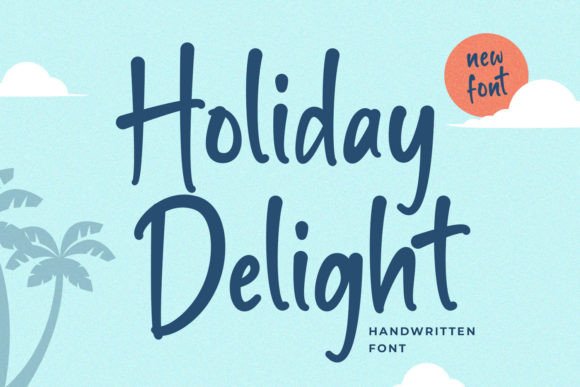
Embark on a typographic journey with Holiday Delight, a captivating script font family that exudes modern elegance and timeless charm. Crafted with meticulous attention to detail by the skilled hands of RantauType, this font is not just a collection of letters; it's an invitation to let your creativity soar.
With its graceful curves and playful personality, Holiday Delight dances across the page, leaving a trail of visual delight. Its carefully crafted swashes add a touch of whimsy and sophistication, making it the perfect choice for logos, packaging designs, and posters that demand attention.
But Holiday Delight's allure extends far beyond its aesthetic appeal. This versatile font is a workhorse, equally adept at crafting business cards and reports that command respect. Its clean lines and exceptional legibility ensure that your words will be read and understood, leaving a lasting impression on your audience.
Whether you're a seasoned designer or just starting, Holiday Delight is your perfect companion. Its user-friendly nature makes it a breeze to work with, allowing you to focus on unleashing your creative vision.
So, embrace the magic of Holiday Delight and watch your designs flourish. Let this font be your muse, inspiring you to create masterpieces that resonate with your audience and leave them spellbound.
Take your branding to new heights, create marketing materials that captivate, and craft documents that exude professionalism. Holiday Delight is the font that will make your business shine brighter than ever before.